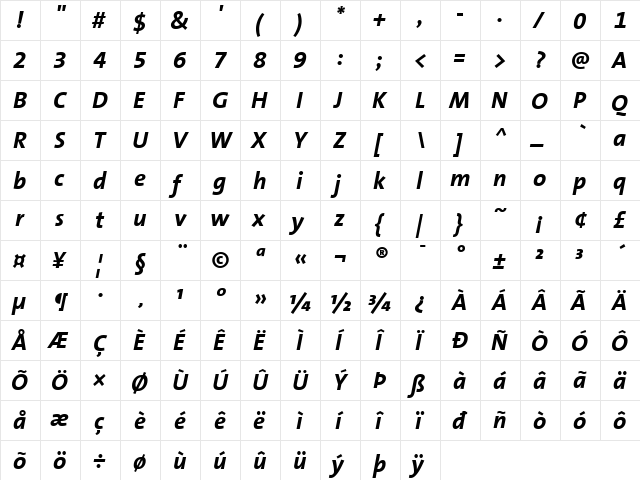
TheSansCorrespondence Italic Font Preview
TheSansCorrespondence Italic
TheSansCorrespondence Italic Font Details
| Foundry | Luc[as] de Groot developer TheTypes bv, Amsterdam, published by FontShop International for FontFont release |
Design Context for TheSansCorrespondence Typeface
TheSansCorrespondence offers clean, dependable letterforms without strong stylistic allegiance, making it a practical choice for designers who need flexibility. The dynamic lean of this cut emphasises speed and emphasis in any layout.